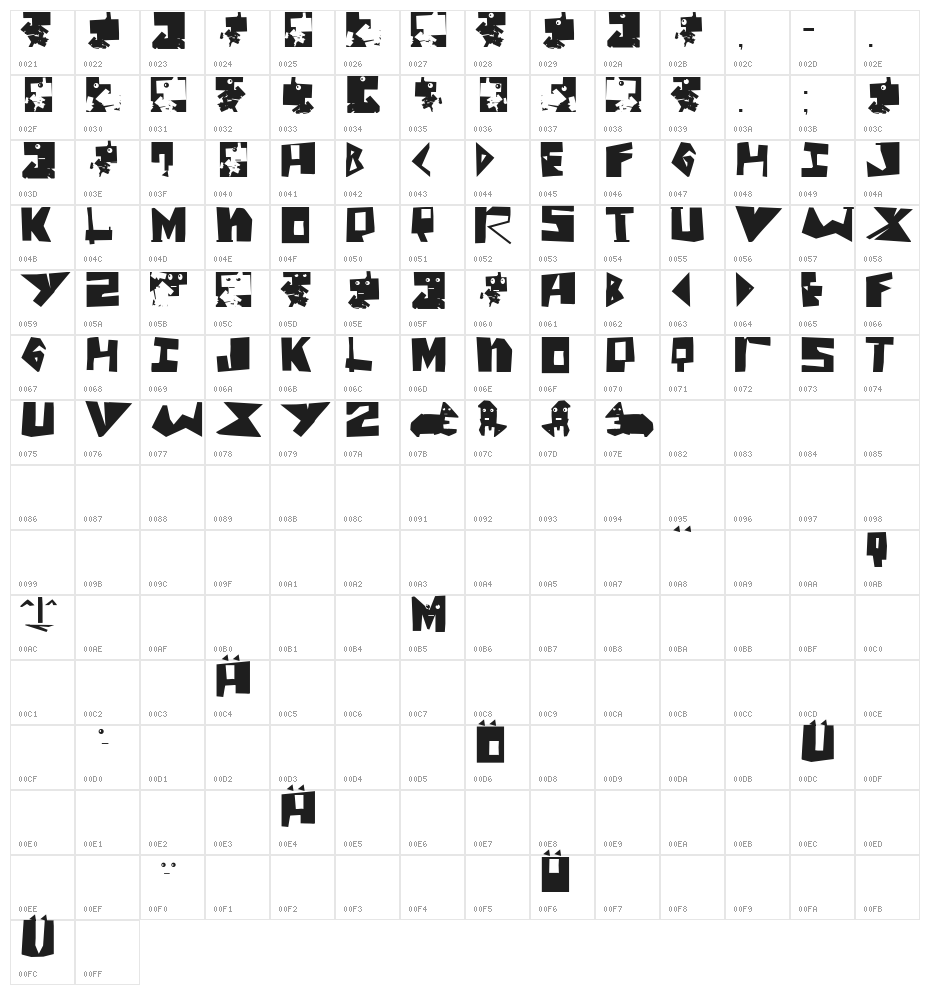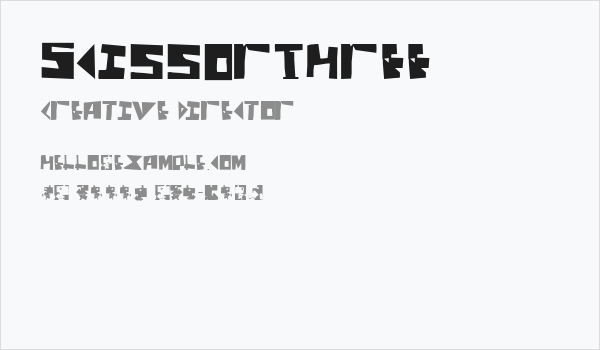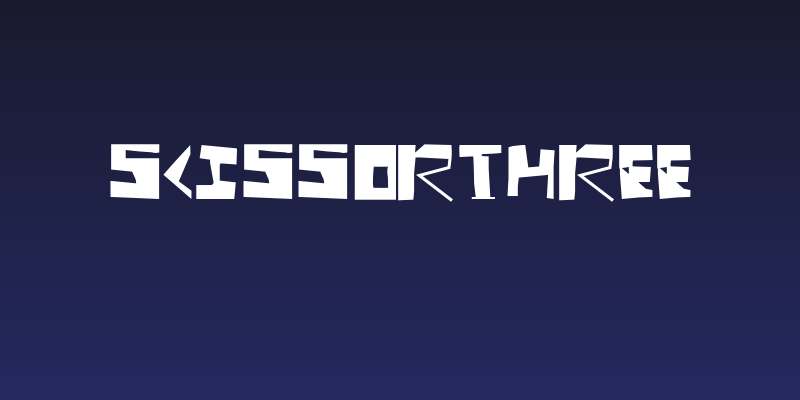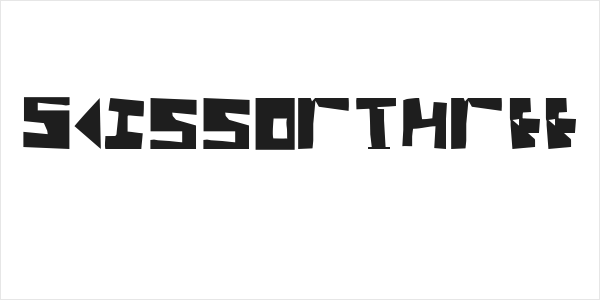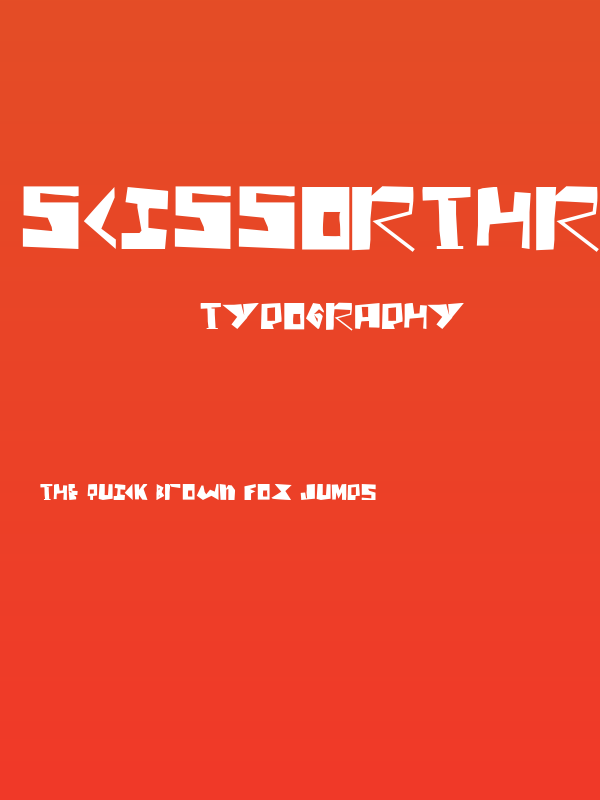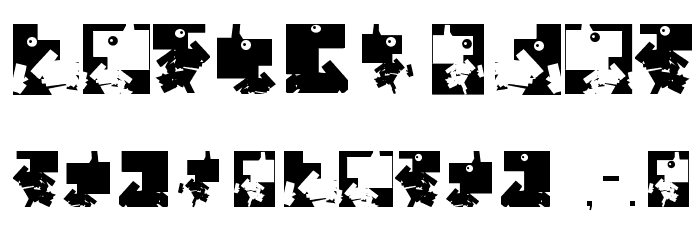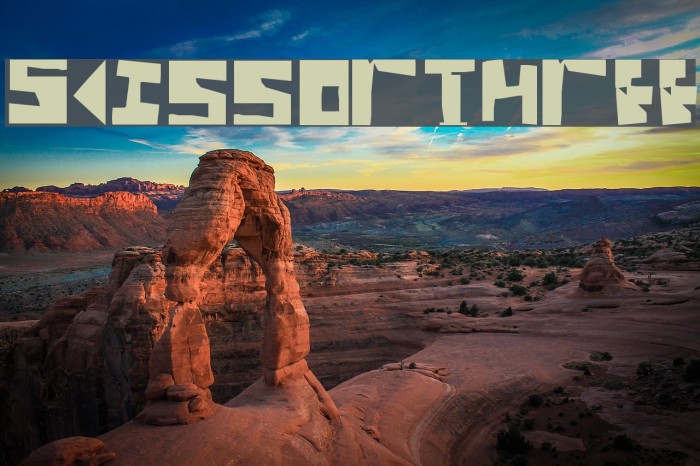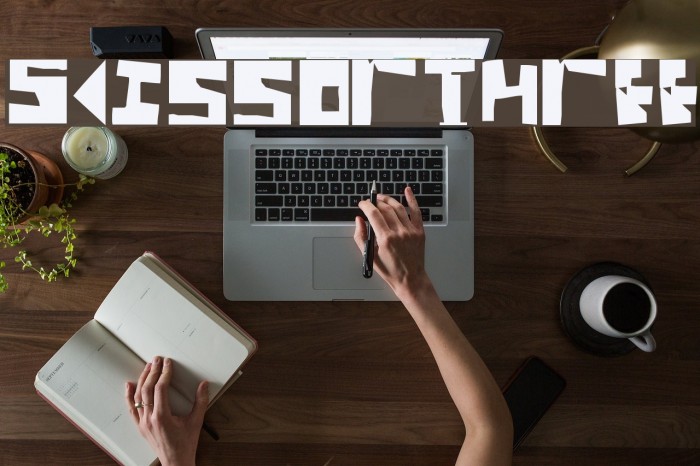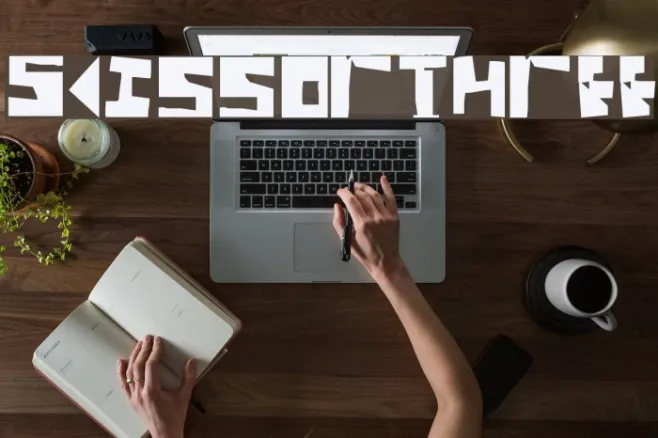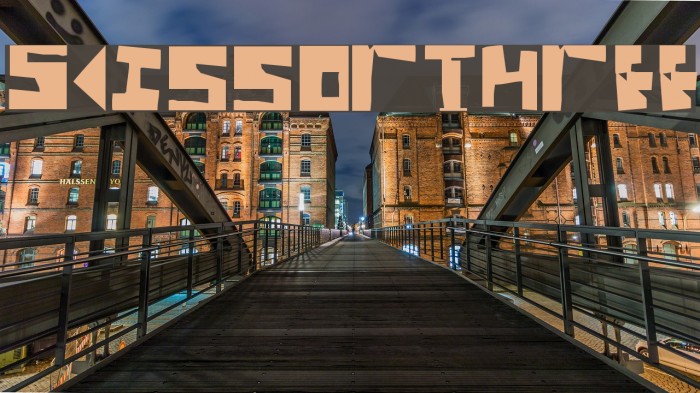
ScissorThree Font
ScissorThree Description
This font features a bold and edgy design with sharp, angular shapes that create a striking visual impact. Each character is uniquely crafted with geometric elements, giving it a modern and abstract appearance. The uppercase and lowercase letters maintain a consistent style, while the numbers and special characters incorporate similar angular motifs. The overall design is reminiscent of cut-out paper or stencil art, making it highly distinctive and eye-catching.
| Overall Style | Modern, Abstract |
| Proposed Projects | Ideal for use in graphic design projects that require a bold statement, such as posters, album covers, or branding for edgy, contemporary products. |